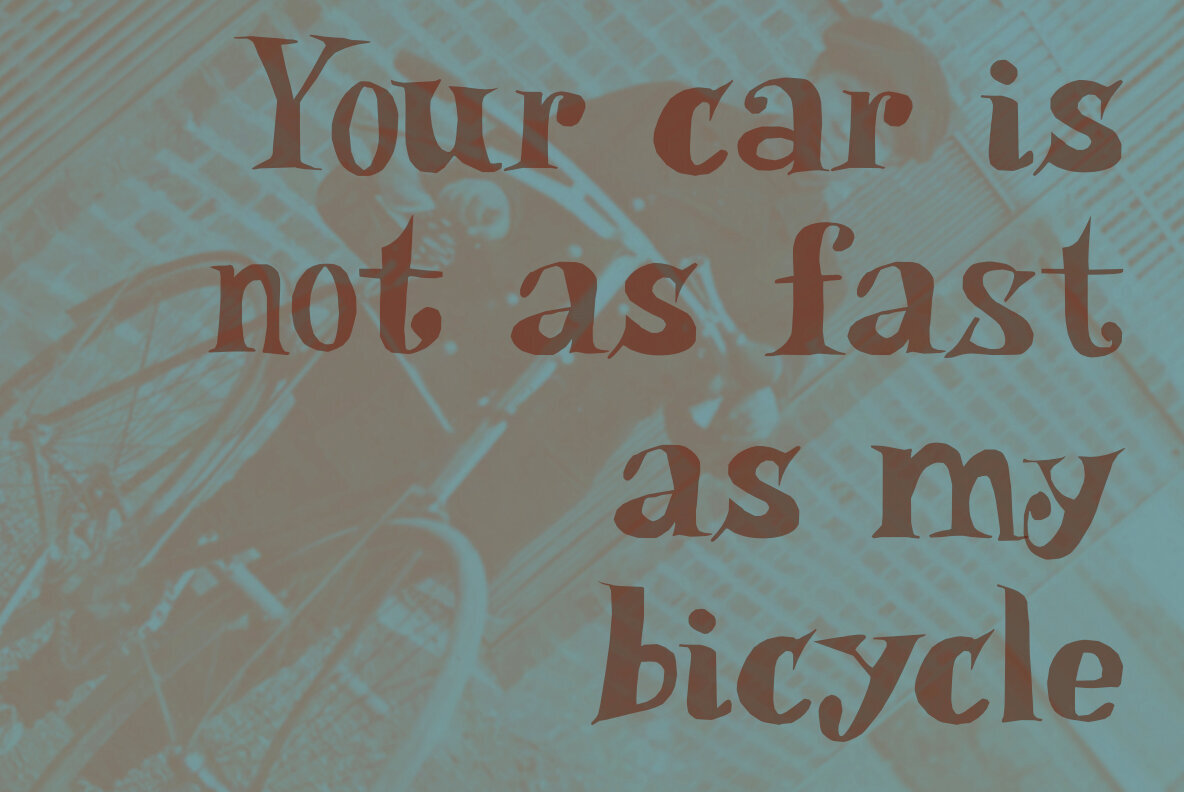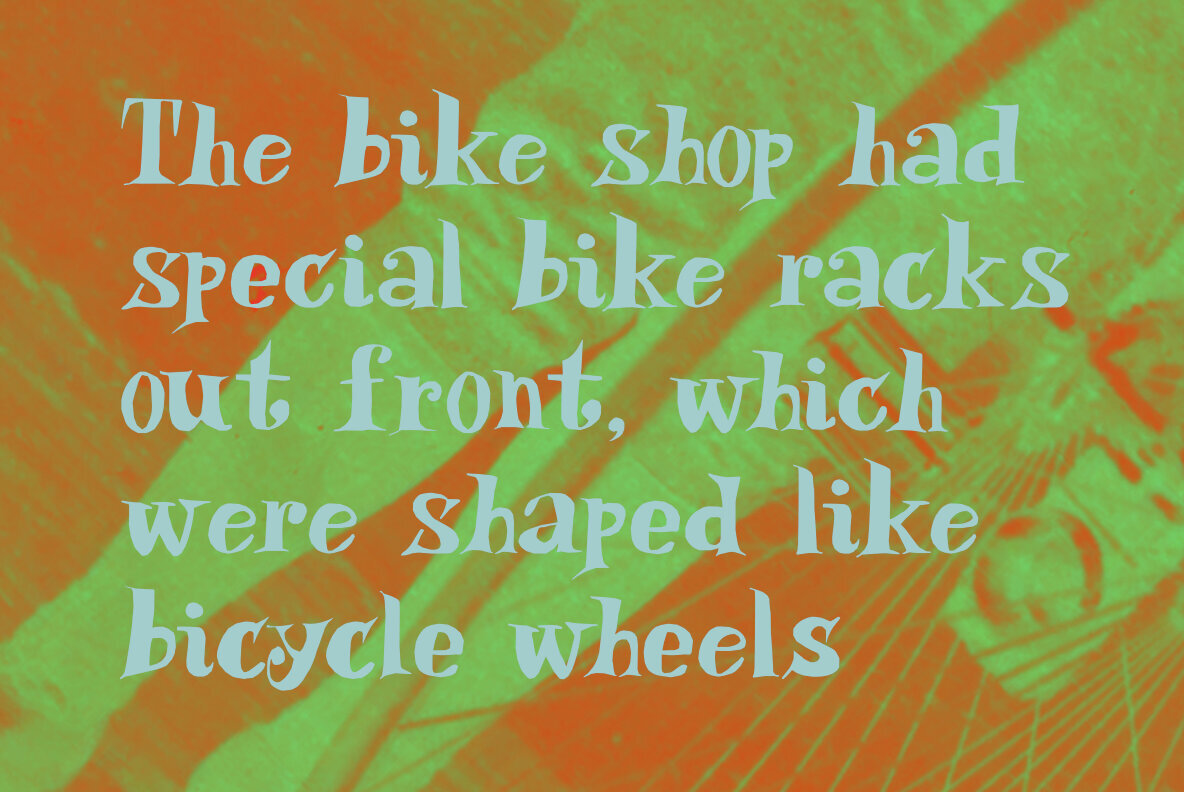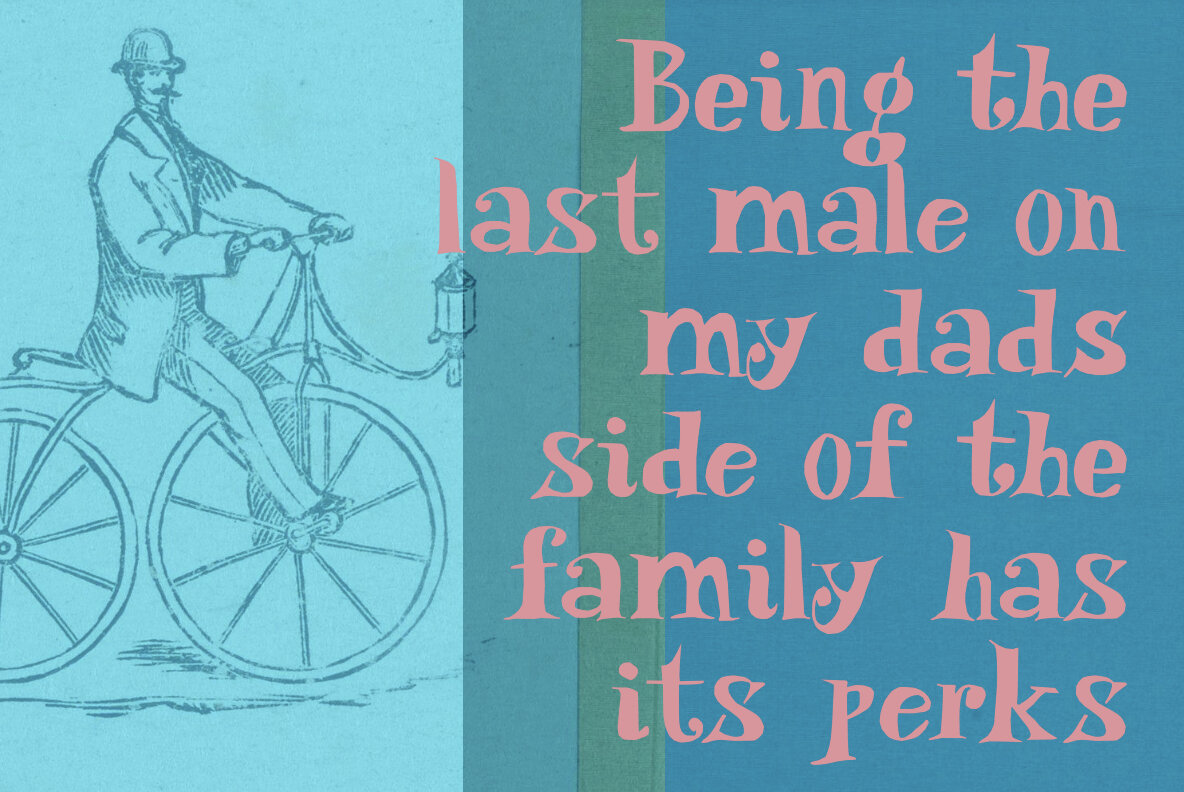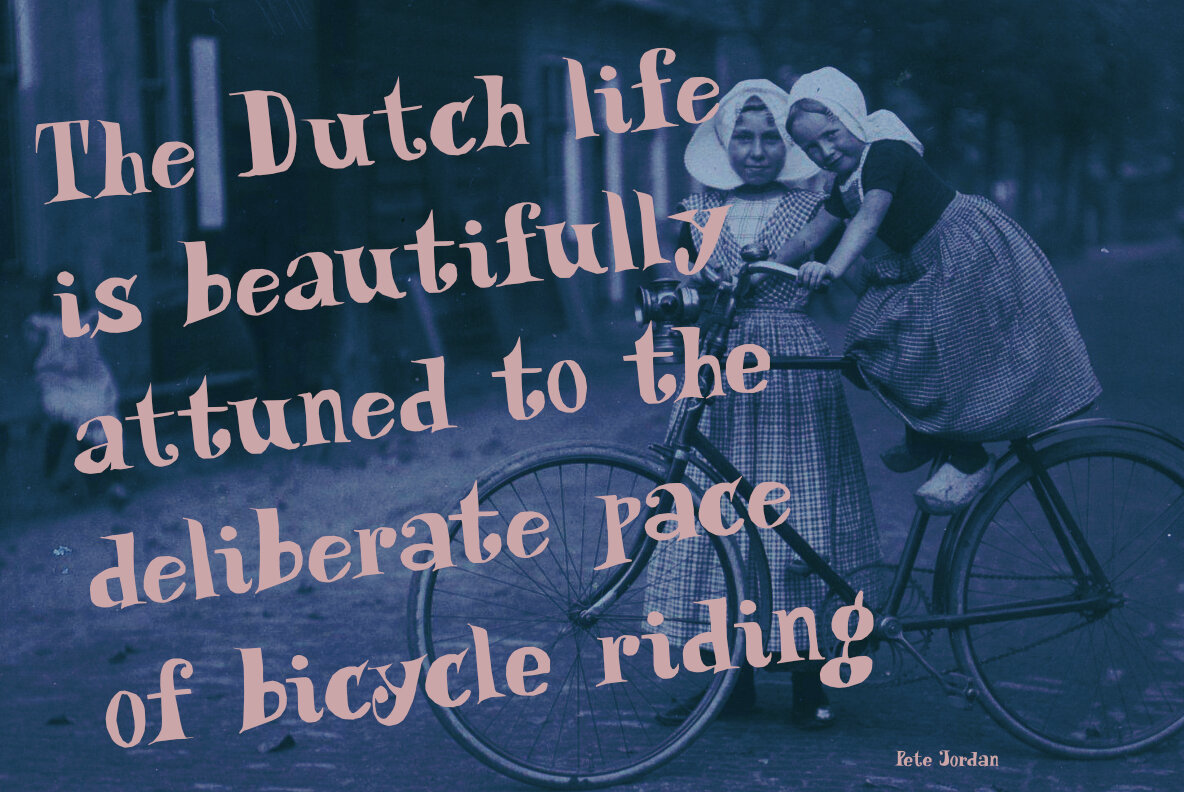
Boneshaker Font
Boneshaker Regular
Boneshaker Italic
A Penny-Farthing was a type of bike, known for its enormous front wheel and the difficulty of riding it. Because it didn’t have air filled tyres, it was also known as a Boneshaker. Boneshaker is a wonderful, handmade, fairy-tale kind of font. Use it for your book covers, your posters and quite possibly your product packaging. Comes with a cool set of stylistic alternates and extensive language support!